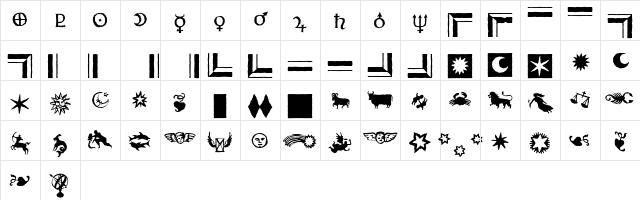
Celestia Antiqua Regular Free Font
Celestia Antiqua Regular
Complete Celestia Antiqua Regular glyph index. Displaying only characters natively supported by Celestia Antiqua Regular font.
Design Context for Celestia Antiqua
Celestia Antiqua is a composed and adaptable typeface that performs quietly and consistently across a wide range of design contexts.